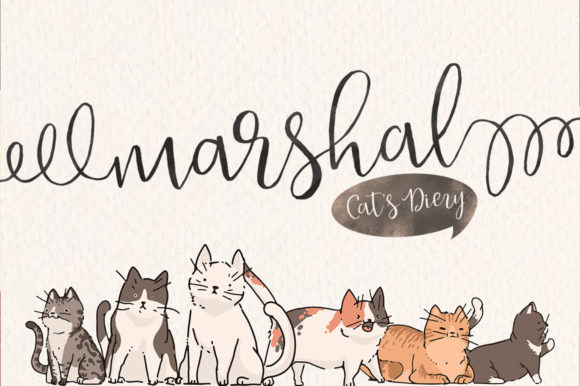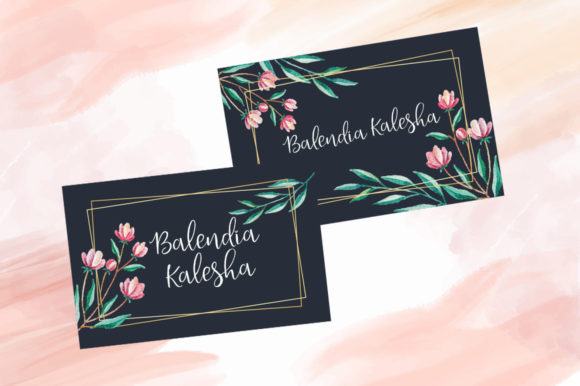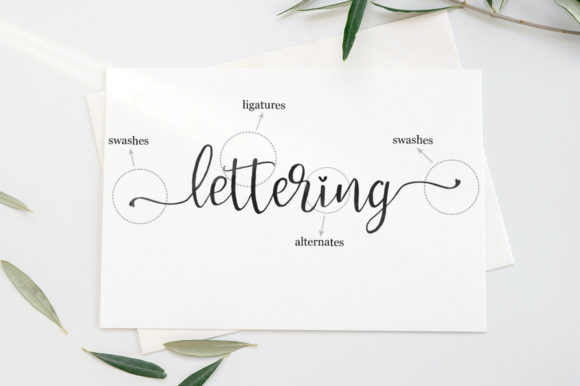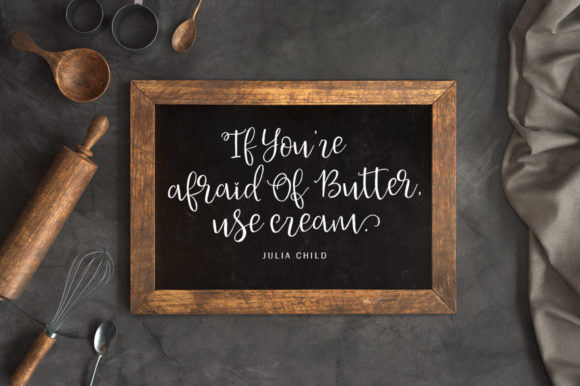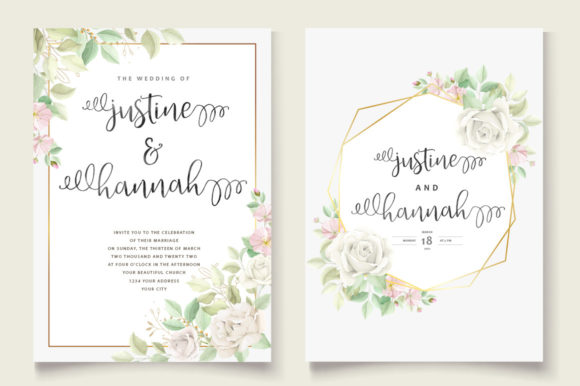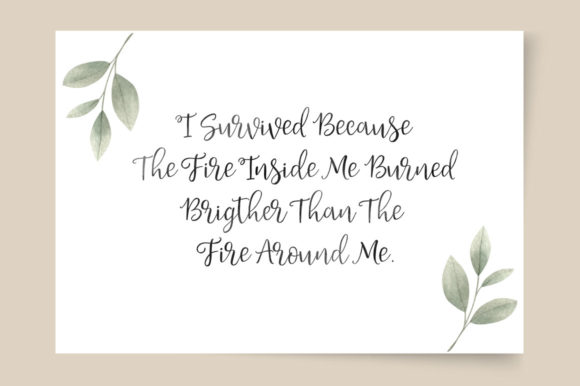
Hello Flarinda Font: Elevate Your Designs with Elegance and Personalization
In the world of digital design, fonts play a crucial role in conveying the tone and aesthetic of a project. For those seeking a touch of elegance and personalization, the Hello Flarinda font is an exceptional choice. This unique and elegant handwritten font is perfect for designers and crafters looking to add a sophisticated flair to their work. Whether you’re creating wedding invitations, thank you cards, logos, or greeting cards, Hello Flarinda is sure to impress.
The Beauty of Hello Flarinda
Hello Flarinda is a beautifully crafted handwritten font that exudes elegance and charm. Its unique characters and flowing lines make it perfect for designs that require a personal touch. The font’s versatility allows it to be used across a wide range of projects, from formal wedding invitations to playful greeting cards. With Hello Flarinda, you can add a touch of sophistication and whimsy to your designs, making them truly unforgettable.
One of the standout features of the Hello Flarinda font is its PUA (Private Use Area) encoding. This means that you can easily access all of the beautiful glyphs and swashes, allowing you to customize your designs with ease. PUA encoding ensures that you can make the most of the font’s features, creating unique and eye-catching designs that showcase your creativity.
Hello Flarinda is an ideal font for designers and crafters who want to add a personal touch to their work. Whether you’re creating digital or print designs, this font is sure to elevate your projects. Designers can use Hello Flarinda to create stunning wedding invitations, elegant logos, and beautiful greeting cards. Crafters can use the font to add a touch of elegance to their handmade projects, such as scrapbooking, card making, and journaling.
Use Cases for Hello Flarinda
The versatility of Hello Flarinda makes it suitable for a wide range of projects, including:
- Scrapbooking and journaling
- Digital and print designs
Tips for Using Hello Flarinda
To make the most of Hello Flarinda, here are a few tips:
- Experiment with different font sizes and colors to add depth and dimension to your designs
- Use the font’s glyphs and swashes to add a touch of elegance and whimsy
- Pair Hello Flarinda with other fonts to create a unique and eye-catching design
- Don’t be afraid to get creative and try new things – Hello Flarinda is a versatile font that can be used in many different ways
Hello Flarinda is a beautiful and elegant handwritten font that is perfect for designers and crafters looking to add a touch of sophistication and personalization to their work. With its PUA encoding and versatile design, this font is sure to elevate your projects and make them truly unforgettable. Whether you’re creating wedding invitations, logos, or greeting cards, Hello Flarinda is an exceptional choice. So why wait? Download Hello Flarinda today and start creating stunning designs that showcase your creativity!